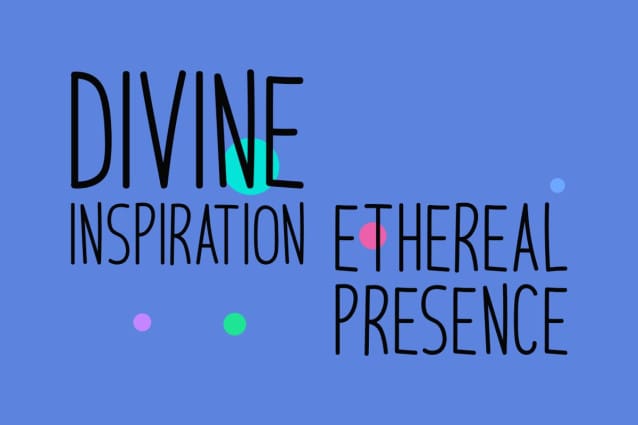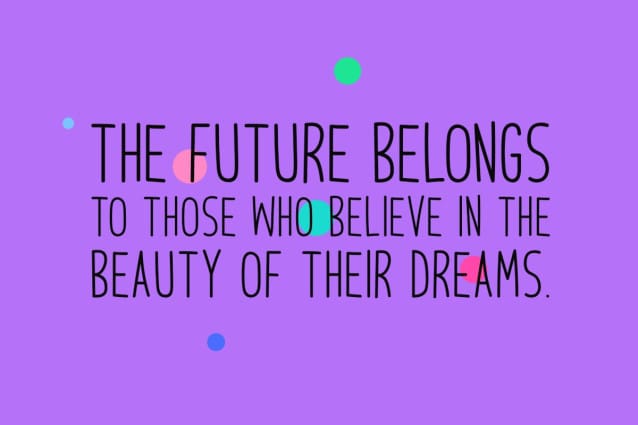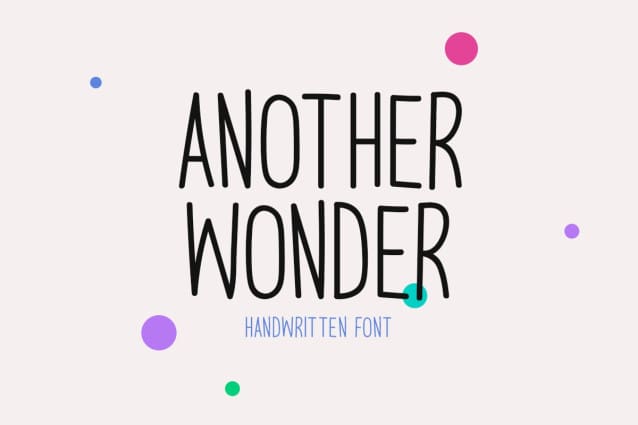
Another Wonder Font
Another Wonder Font is a sweet and simple handwritten font. Its unique style makes it incredibly fitting for a large pool of designs.